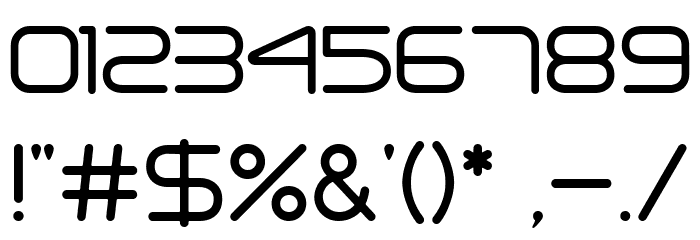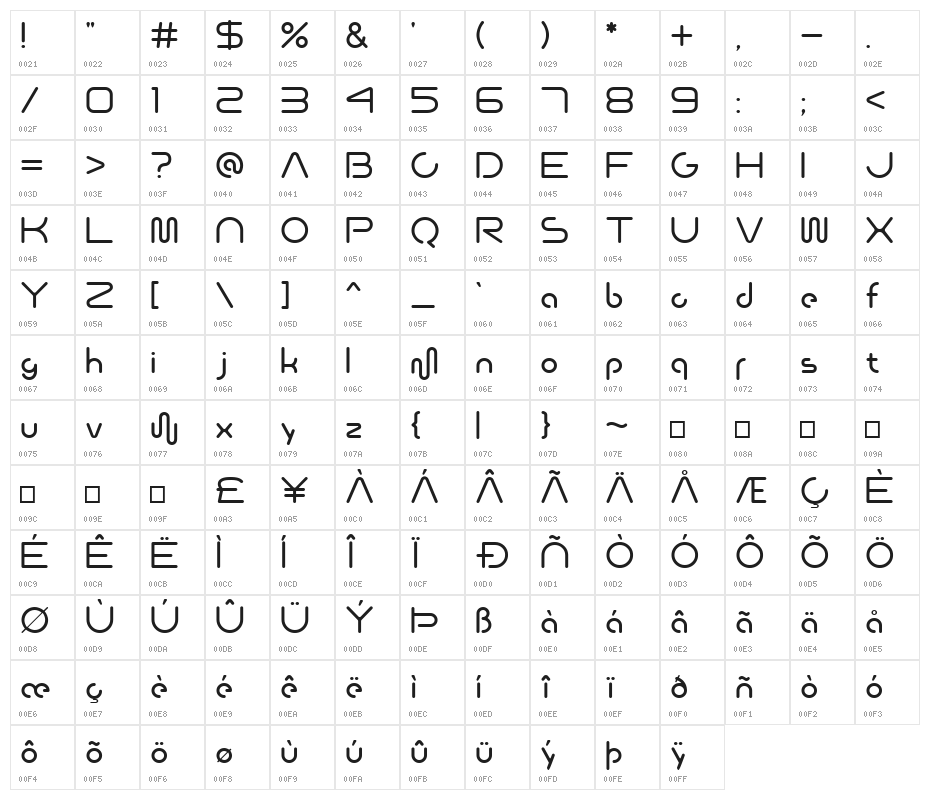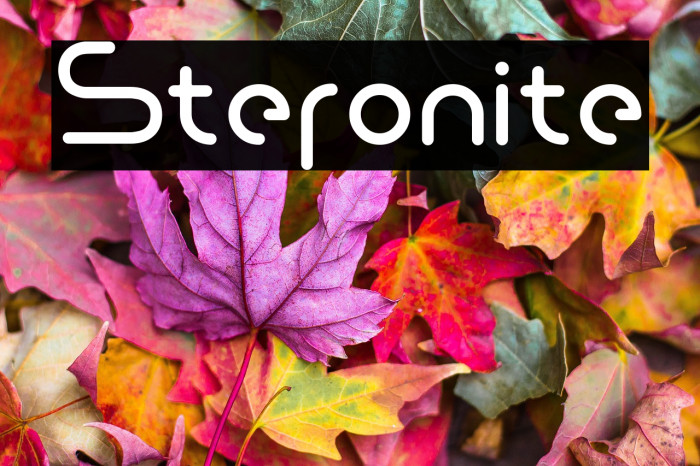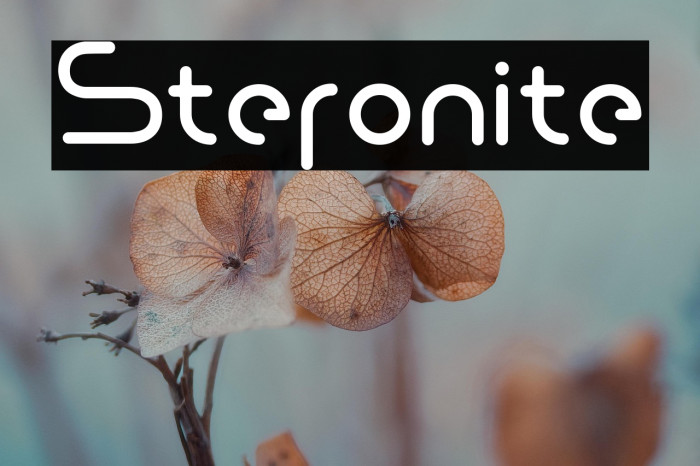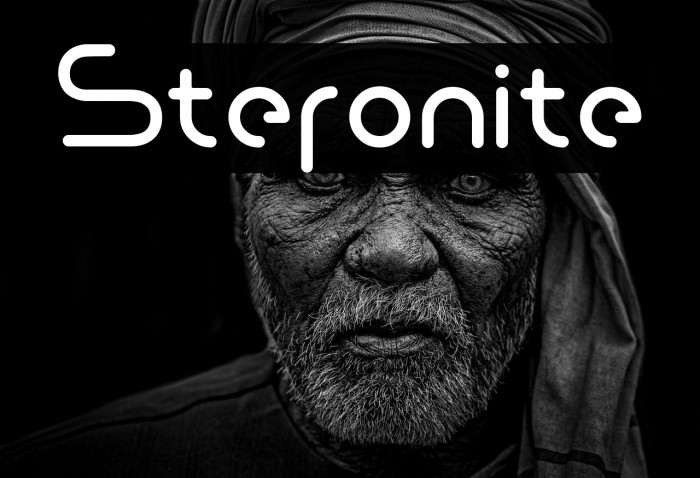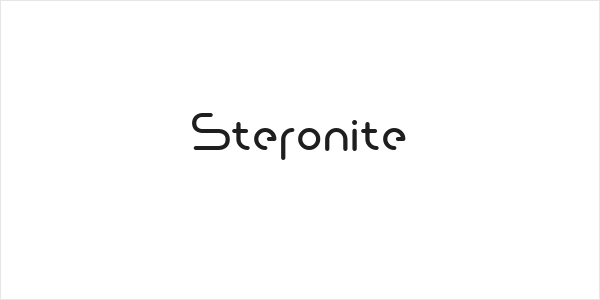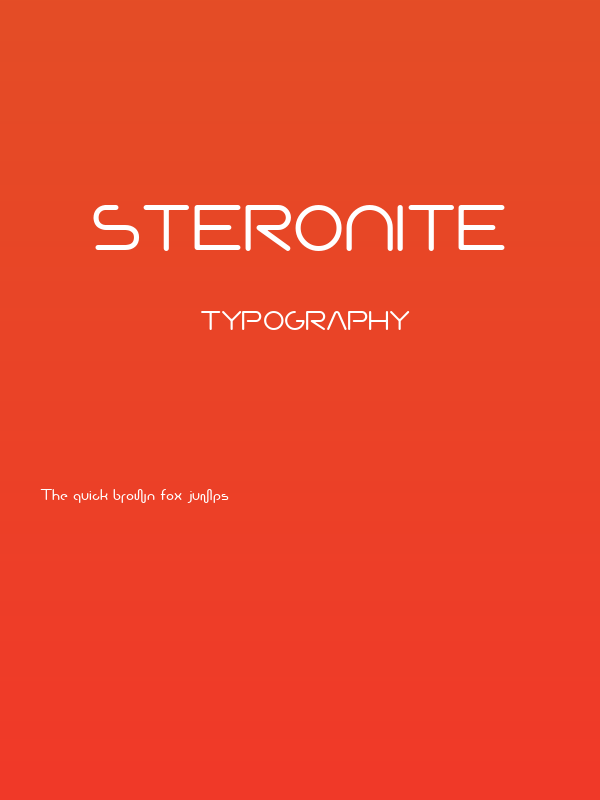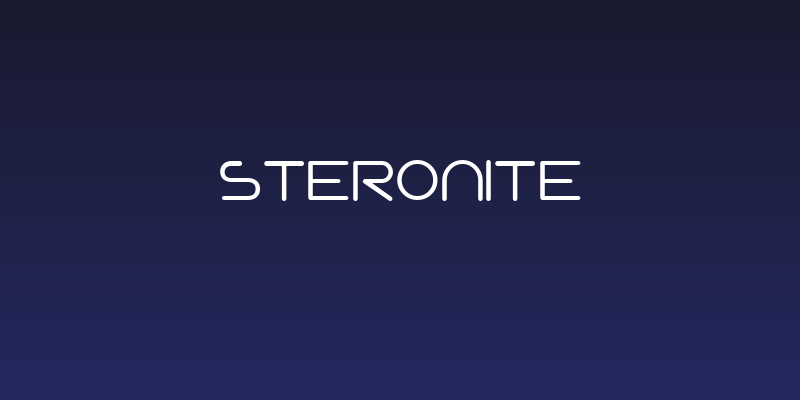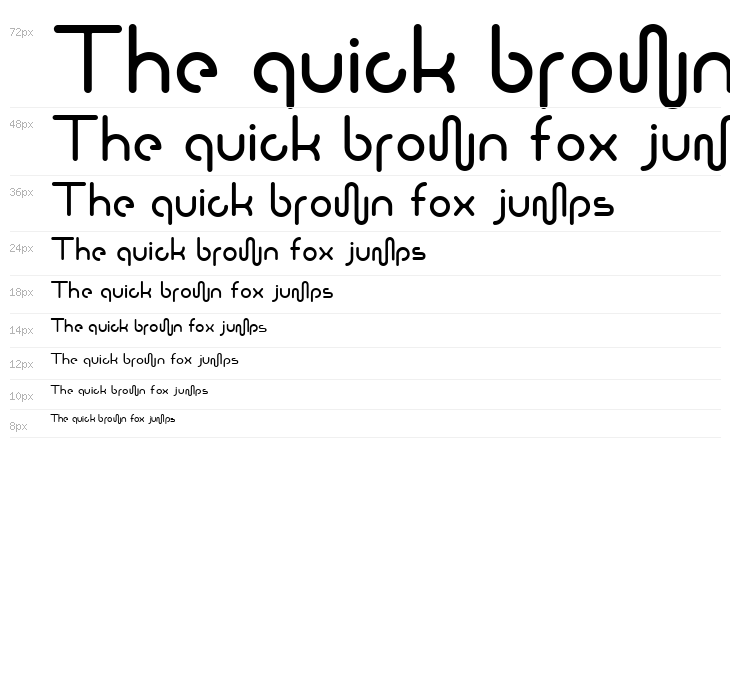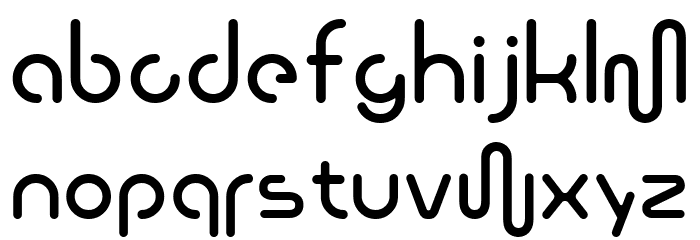
Steronite Font
Steronite Description
This font features a modern, futuristic design with rounded edges and a geometric structure. The characters are uniform in width, giving it a monospaced appearance, though it is not strictly monospaced. The uppercase letters are distinct with a clean, minimalistic style, while the lowercase letters maintain a similar aesthetic with some unique variations, such as the looped 'g' and 'y'. The numerals are consistent with the overall design, offering clarity and readability. Special characters are well-integrated, maintaining the font's cohesive look. This font is ideal for projects that require a contemporary and sleek appearance.
| Use Case | Logos, Headlines, Digital interfaces |
| Proposed Projects | Ideal for tech branding, digital interfaces, modern advertising, and futuristic design projects. |